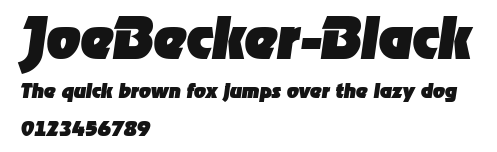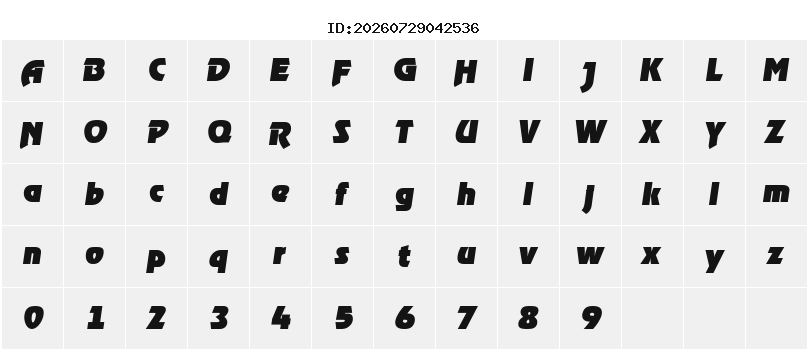
• Font Name: JoeBecker-Black
• Full Font Name: JoeBecker-Black Italic
• PostScript Name: JoeBecker-Black-Italic
About JoeBecker-Black.ttf
JoeBecker-Black.ttf is a modern, elegant sans-serif font designed for ultimate readability and visual harmony. Perfect for branding, headlines, web design, and print materials.